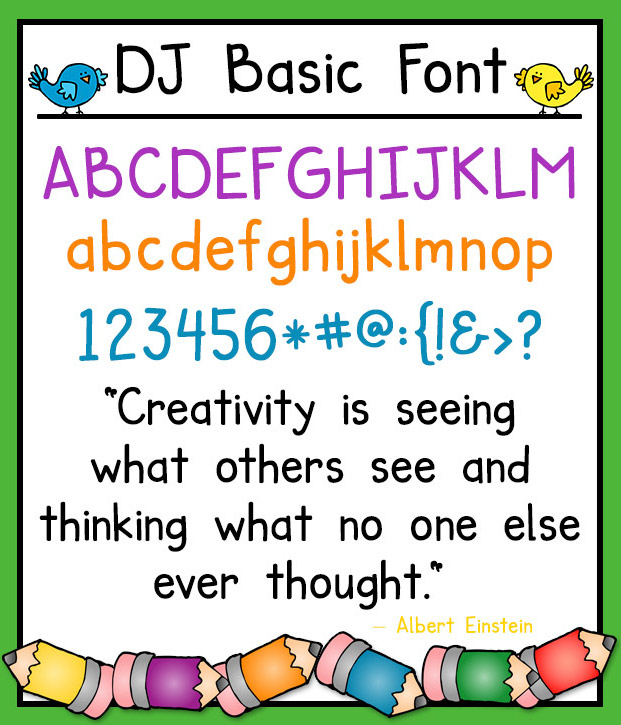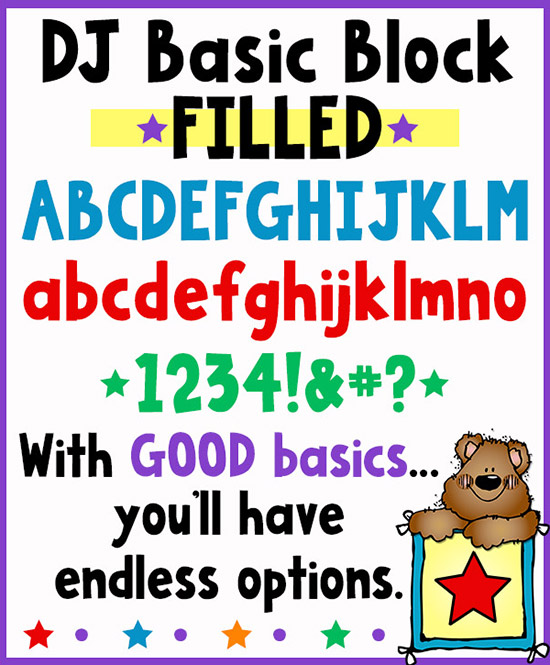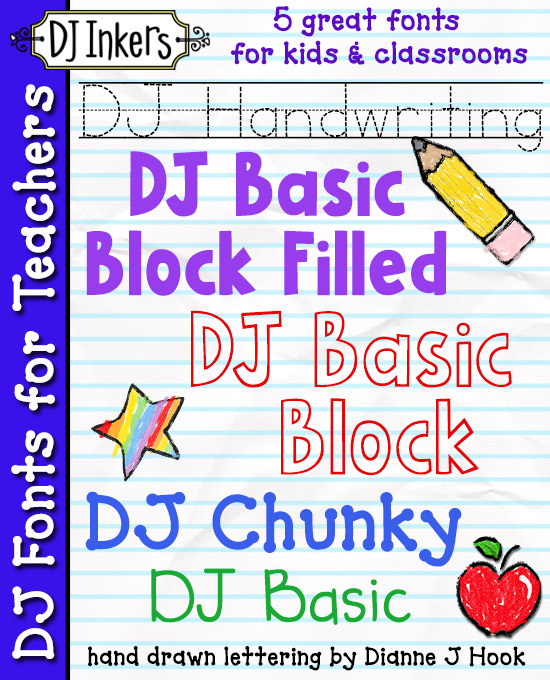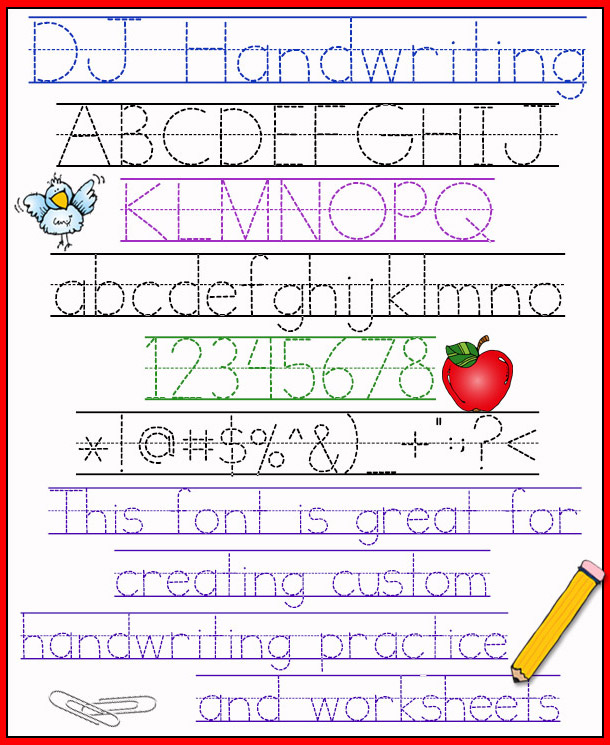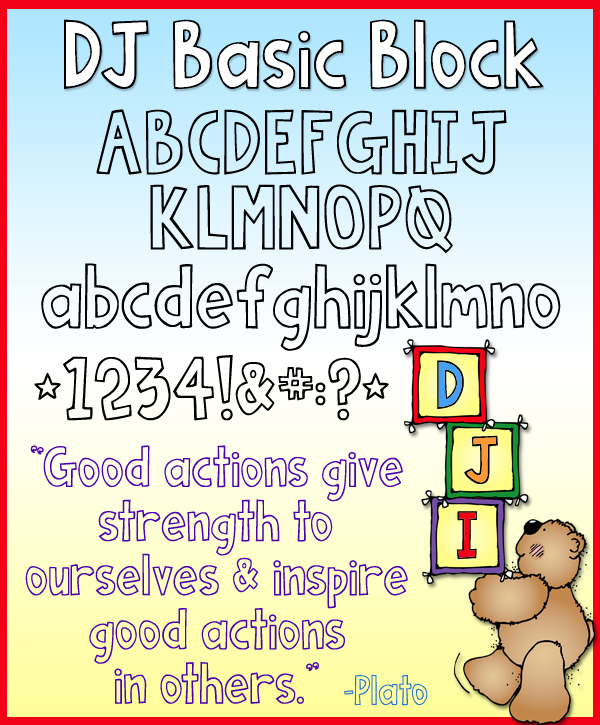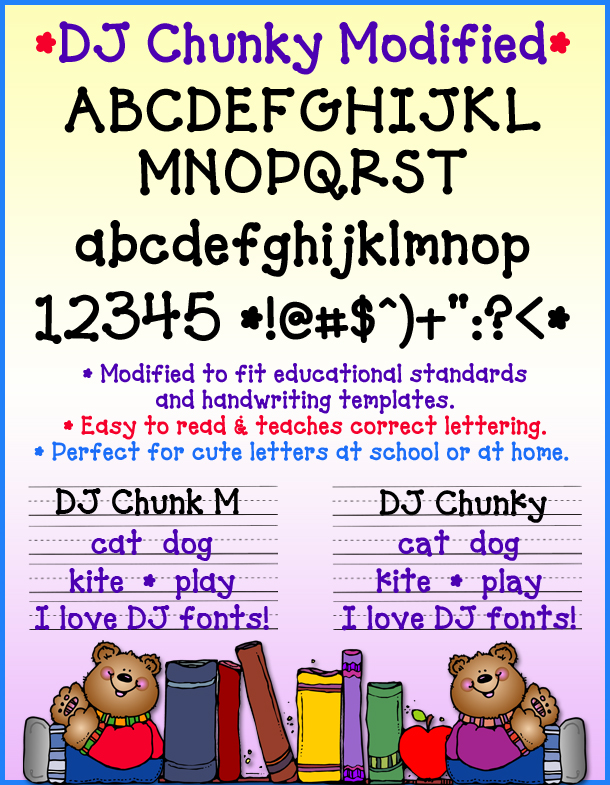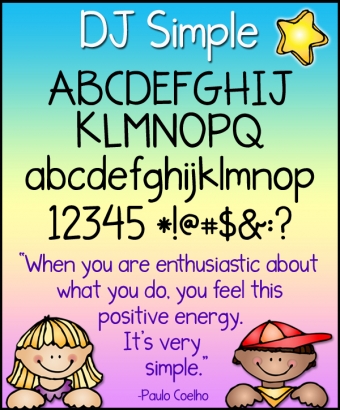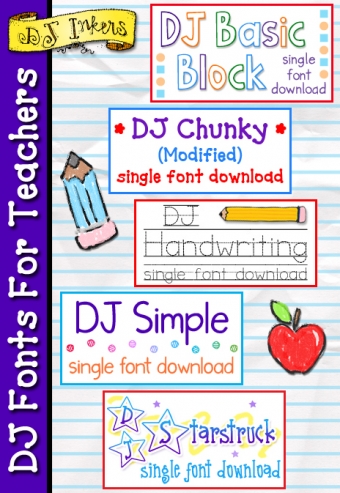
"I use the handwriting font ALL THE TIME! Love it!"
"Love them all!"
"Awesome! I love that these fonts are compatible with Spanish characters :)"
"Obsessed with these fonts!"
"I love the clear and fun fonts! They make what I create better! Thanks"
"Just love these fonts!!" TPT Rating: 4.0
"All time favorite fonts!!" TPT Rating: 4.0
I loved the fonts, and thank you for including the accents! Muchas gracias ;)
Loved the different fonts!
Great fonts to use for worksheets and correspondence. Easy to use.
I love DJ Inkers Fonts!
I love these fonts!!!!!!
Great addition to all of my fonts. Love the ability to make things personalized.
The handwriting fonts have been really useful for creating materials for my class.
Thank you for creating this. I loved all of the choices.
Love this resource so much!
"Love this resource so much! Thanks for creating and sharing a product I can use with my students!" Rating: 5/5 (extremely satisfied)